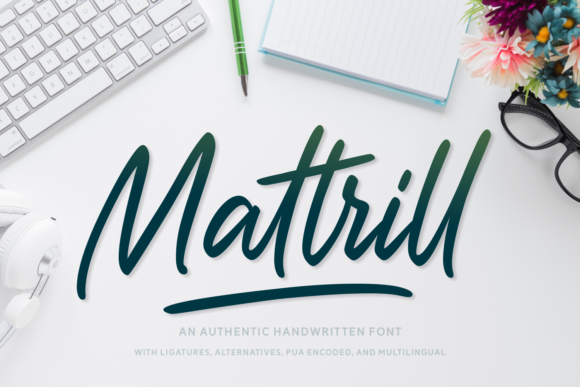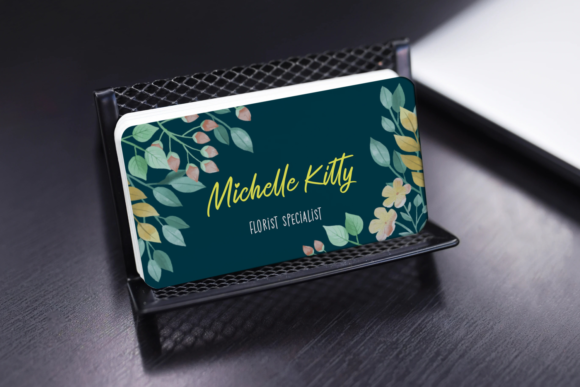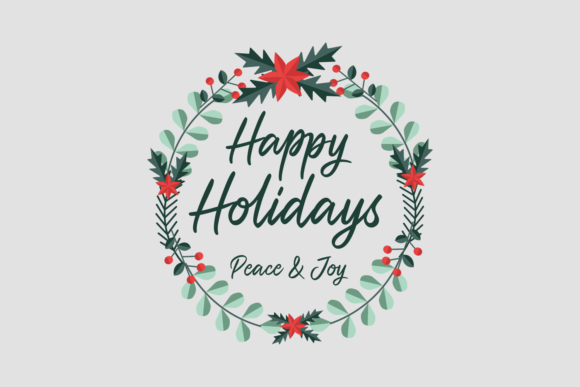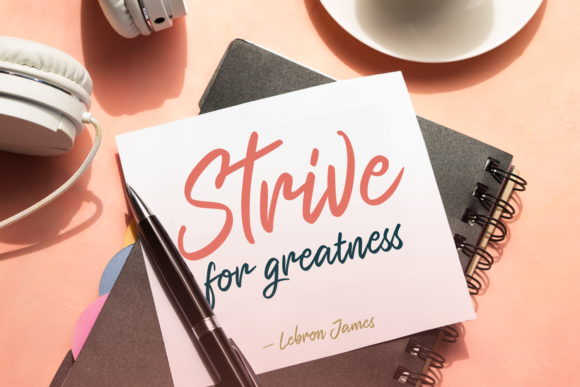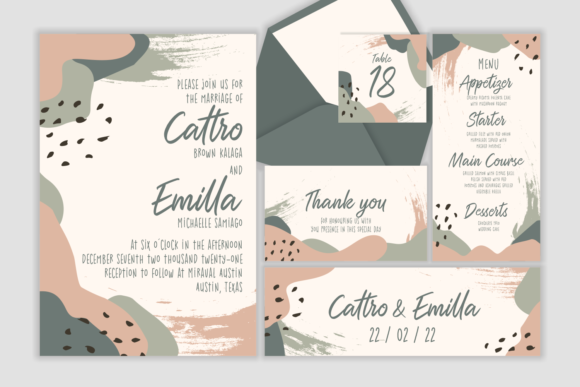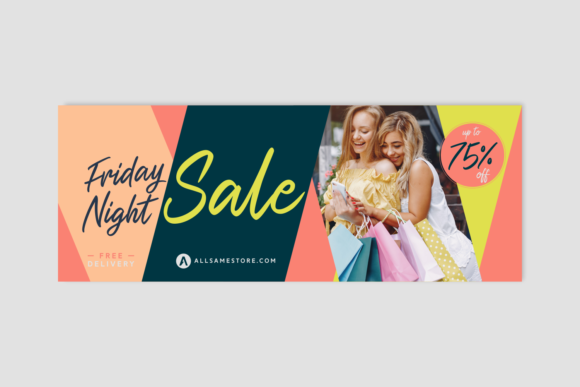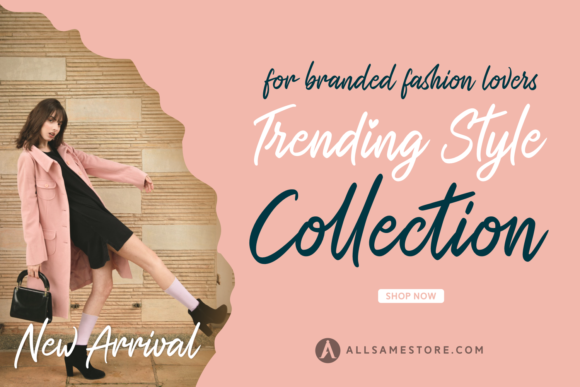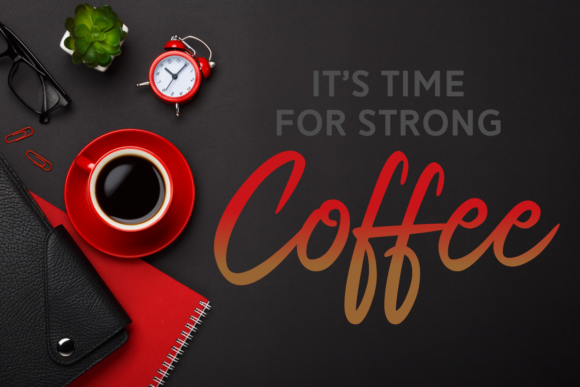
HomeScript FontsMattrill Font Script Fonts Mattrill Font FacebookXPinterestWhatsApp Mattrill Font Poster 2 Mattrill Font Poster 3 Mattrill Font Poster 4 Mattrill Font Poster 5 Mattrill Font Poster 6 Mattrill Font Poster 7 Mattrill Font Poster 8 About Mattrill Font Mattrill is a cool and fun script with a unique style. It will turn any design idea into a true standout! DOWNLOAD ON CREATIVE FABRICAThis font is sold and delivered by Creative Fabrica. Font Canyon may earn a commission if you buy through this link. People also explored Holiday Christmas Font Cassanova Font Zanipolo Pocket Notebook Studio Formentera Window Duo | Beer Mockup Fondly Yourz Antio! Duo Font Charcuterie Font Soul of You Font 321 0 TagsMattrill Font Previous articleMojang Script FontNext articleDastend Font LEAVE A REPLY Cancel reply Comment: Please enter your comment! Name:* Please enter your name here Email:* You have entered an incorrect email address! Please enter your email address here Website: Save my name, email, and website in this browser for the next time I comment. Personal Use Free Archipellago Personal Use Free Read more about this font Cute Messy Personal Use Free Read more about this font Bashira Personal Use Free Read more about this font Haris Wood Personal Use Free Read more about this font BLOG Top 10 Handwritten Fonts That Elevate Your Designs Top 10 Handwritten Fonts That Will Elevate Your Designs Handwritten fonts bring a warm, personal touch to every creative project. Whether you're designing logos, invitations,... Free vs Paid Fonts: Why Investing in Premium Fonts Is Worth It 5 Fonts That Will Dominate Design Trends in 2026 Exploring Font Trends